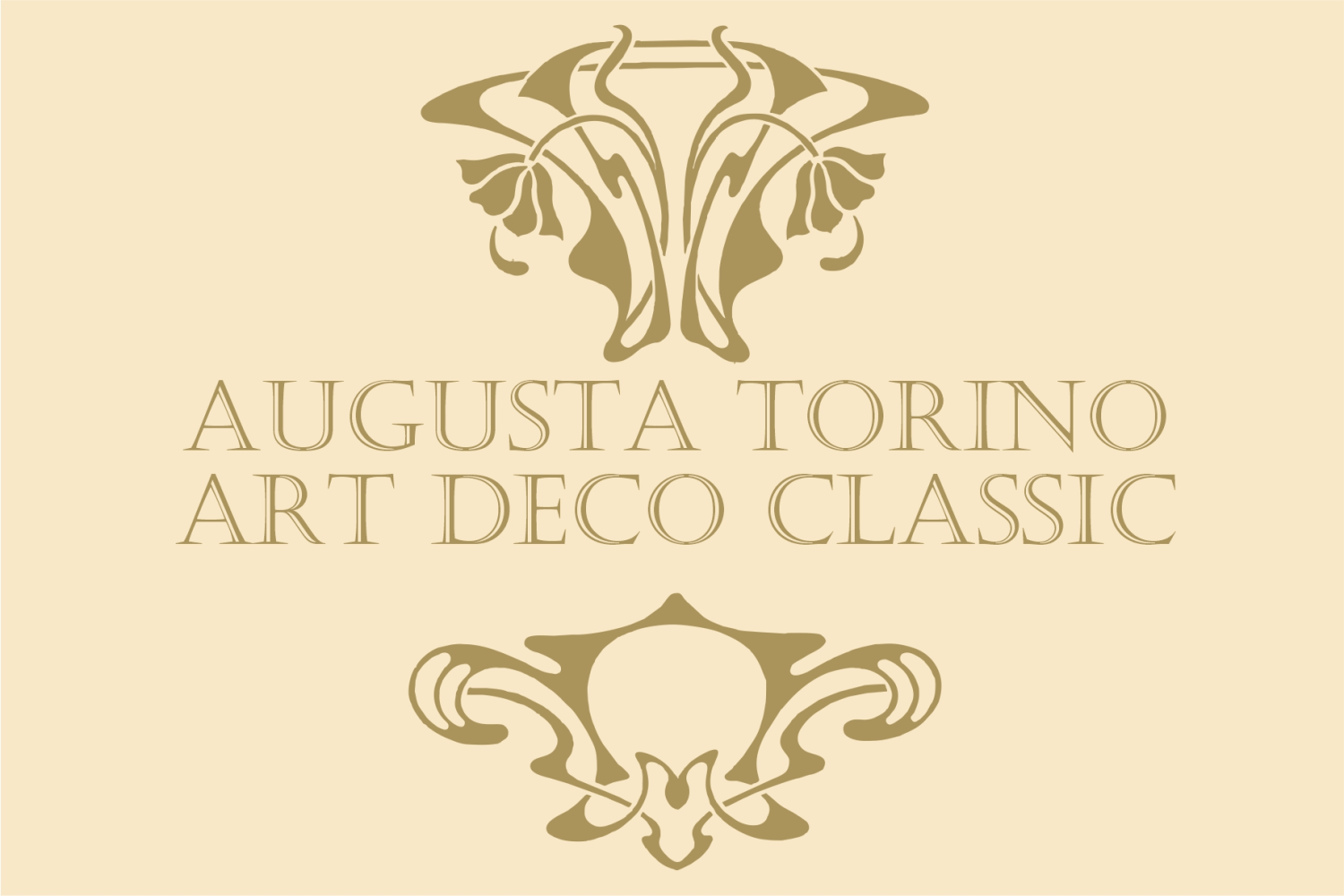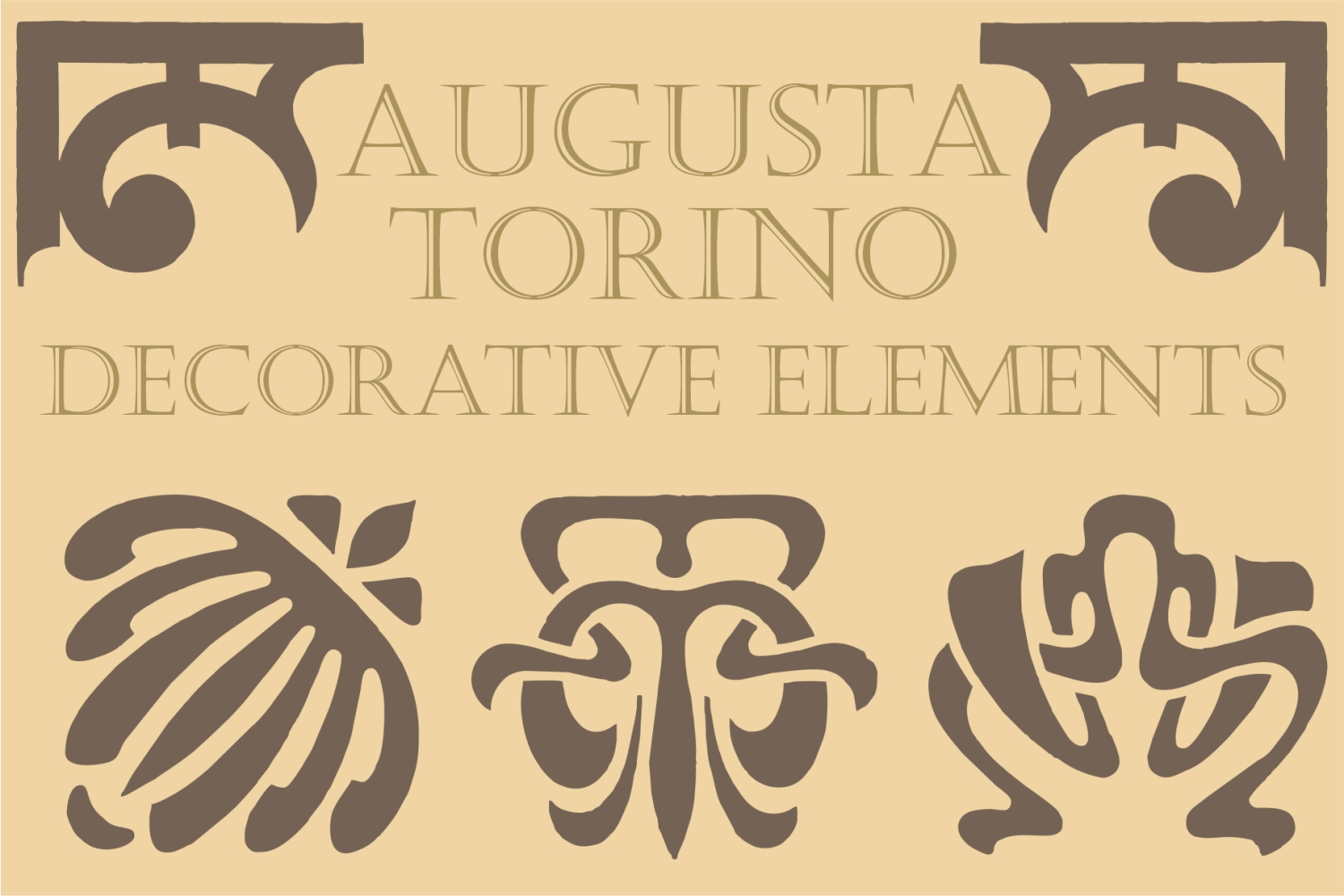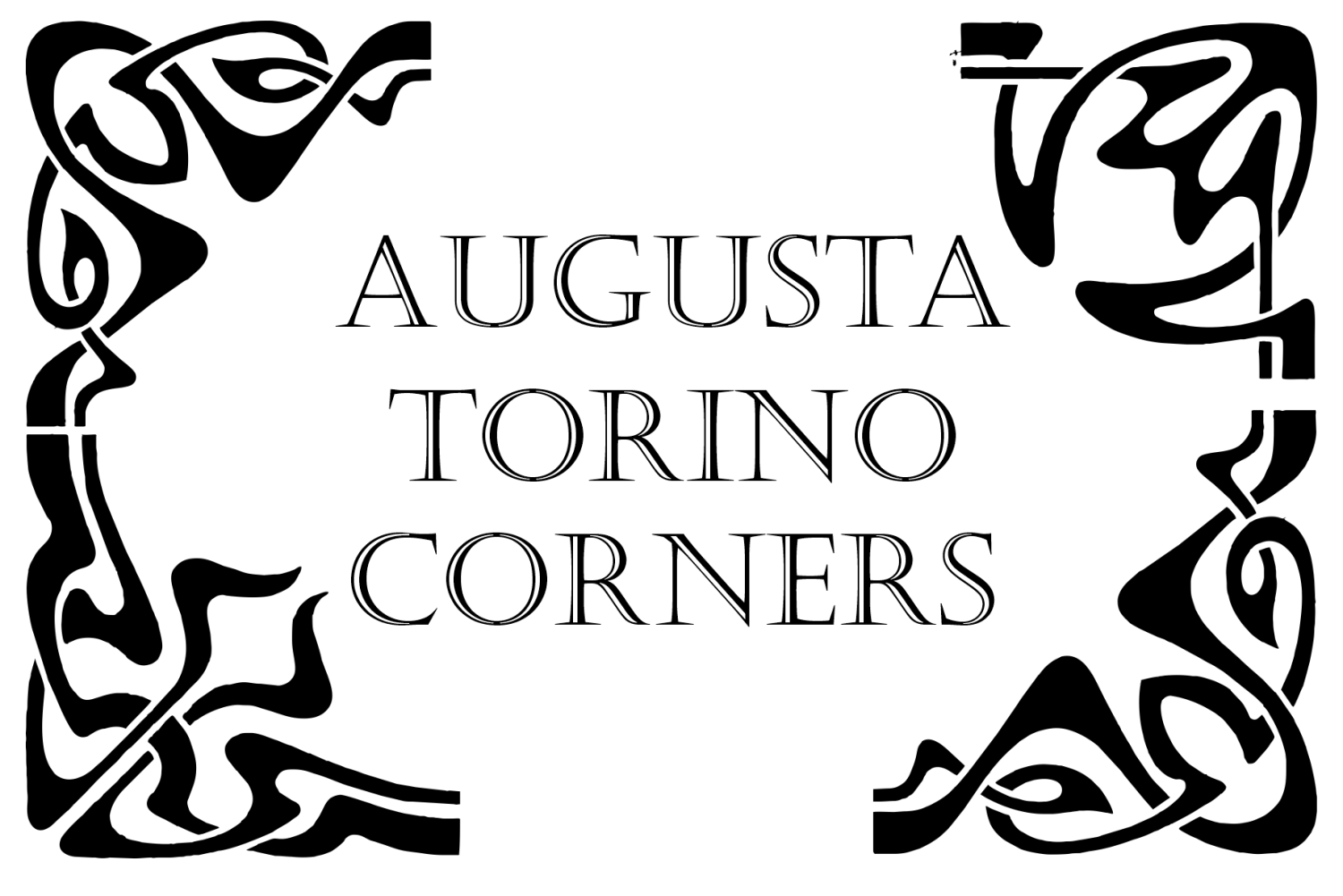
Augusta Torino
Classic art deco ornaments digitized from the font catalogues of "Società Augusta Torino", also Nebiolo Fundicion, one of the most important european extinct typefoundry from last century. Soon, more fonts of that collection